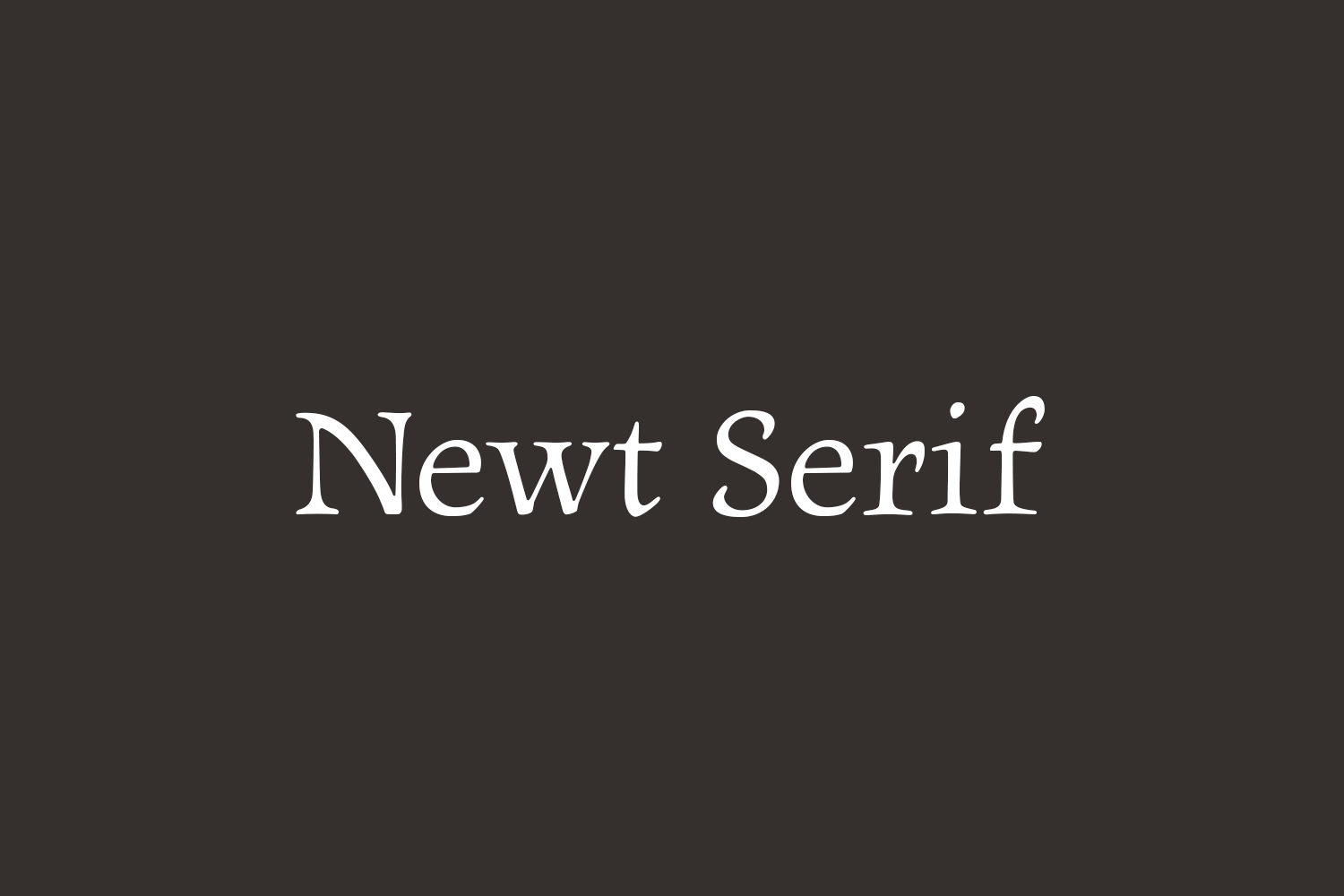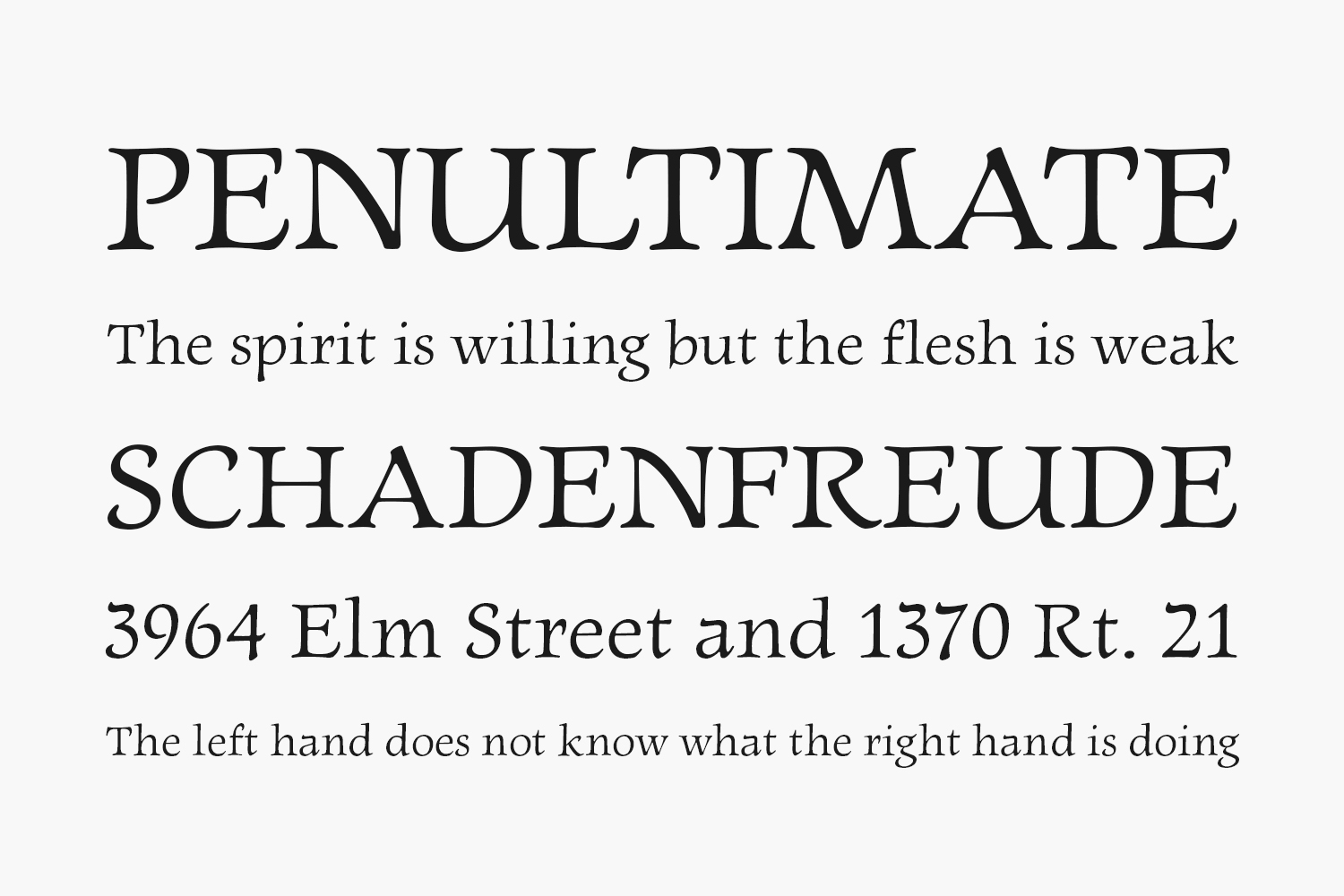
Newt Serif Free Font Family is a soft, friendly serif font that has been described as appearing to have been “drawn by the light of mystic moons.” It did take many moons to finish (being my first finished font), so maybe some of them were mystic. Newt Serif has a strong calligraphic bent and a healthy dose of whimsy. The italics are of a freer spirit than the romans and include a few intriguingly shaped letters (for example: E, g, s, and y). While the font is light-hearted, it’s still a fairly “typographically-minded” serif, comfortable enough for longer passages of text.